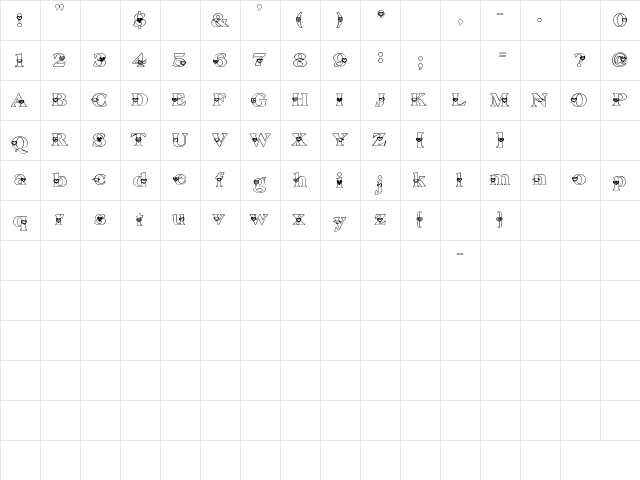
2Peas Heartfelt Regular Font Preview
2Peas Heartfelt Regular
2Peas Heartfelt Regular Font Details
| Foundry | Two Peas In A Bucket |
| Designer | Tia Bennett |
Design Context for 2Peas Heartfelt Typeface
2Peas Heartfelt is a composed and adaptable typeface that performs quietly and consistently across a wide range of design contexts.